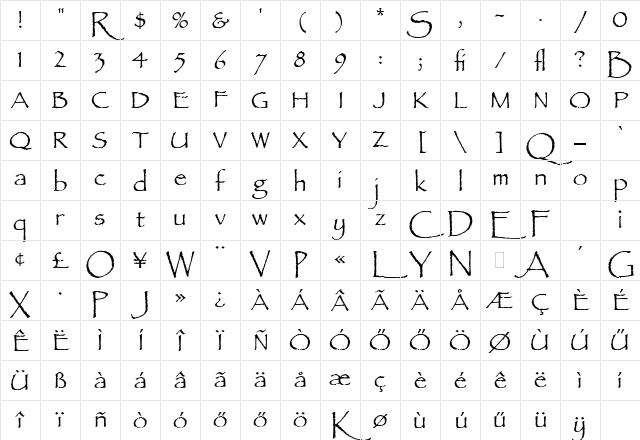
Huni_Papyrus Plain Regular
Design Context for Huni_Papyrus Plain
Huni_Papyrus Plain is a composed and adaptable typeface that performs quietly and consistently across a wide range of design contexts.
Pro Tip: Use Huni_Papyrus Plain in both headline and body roles to test its range before committing to a single application.